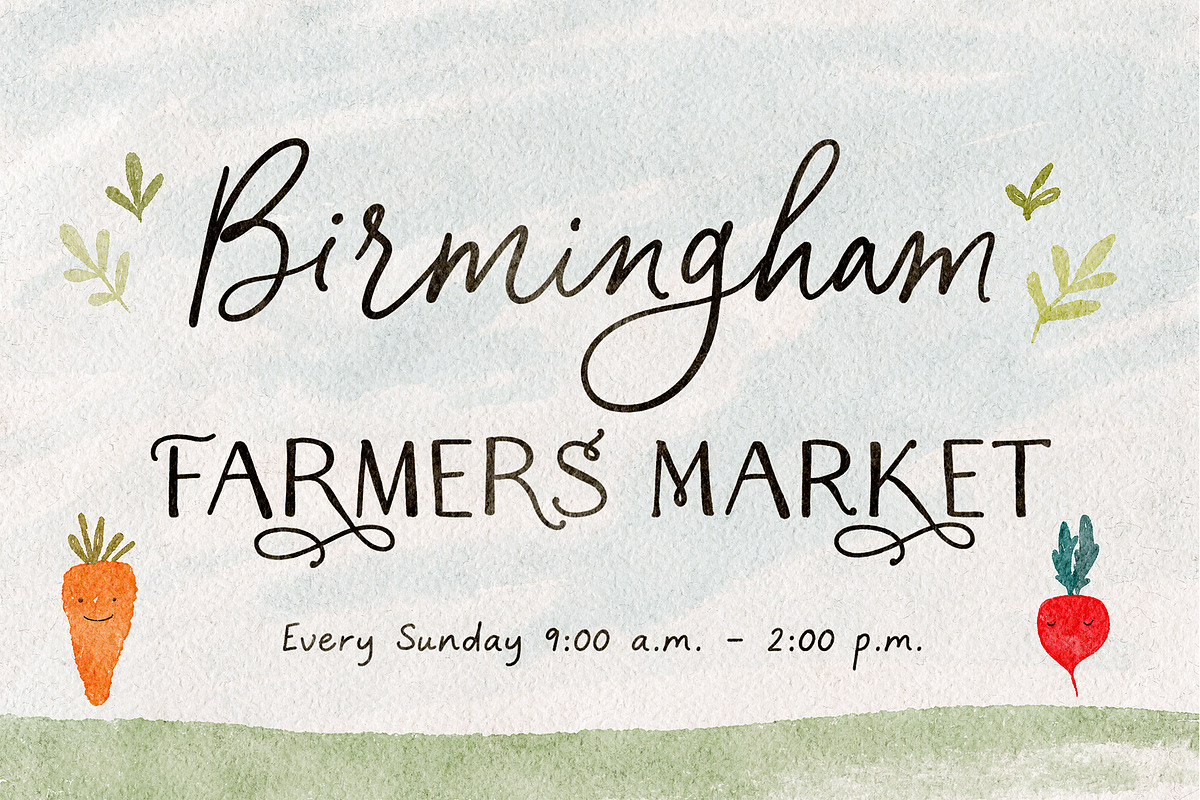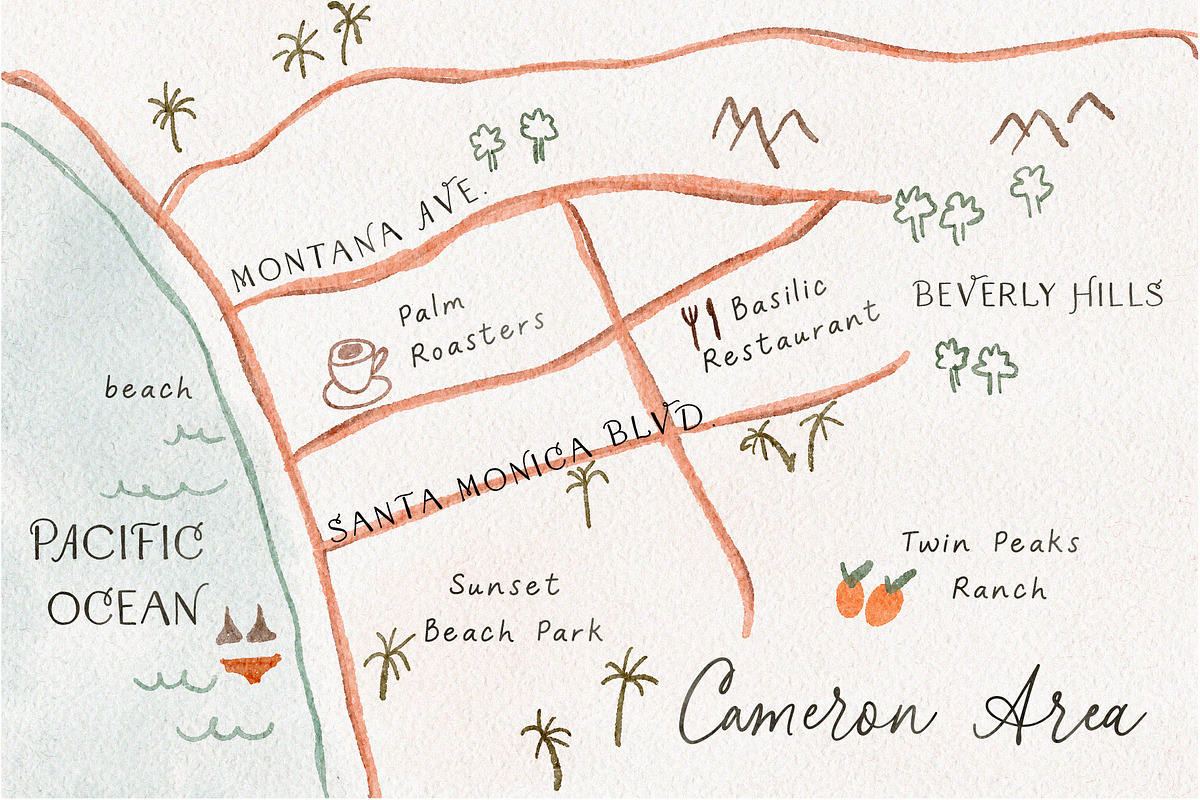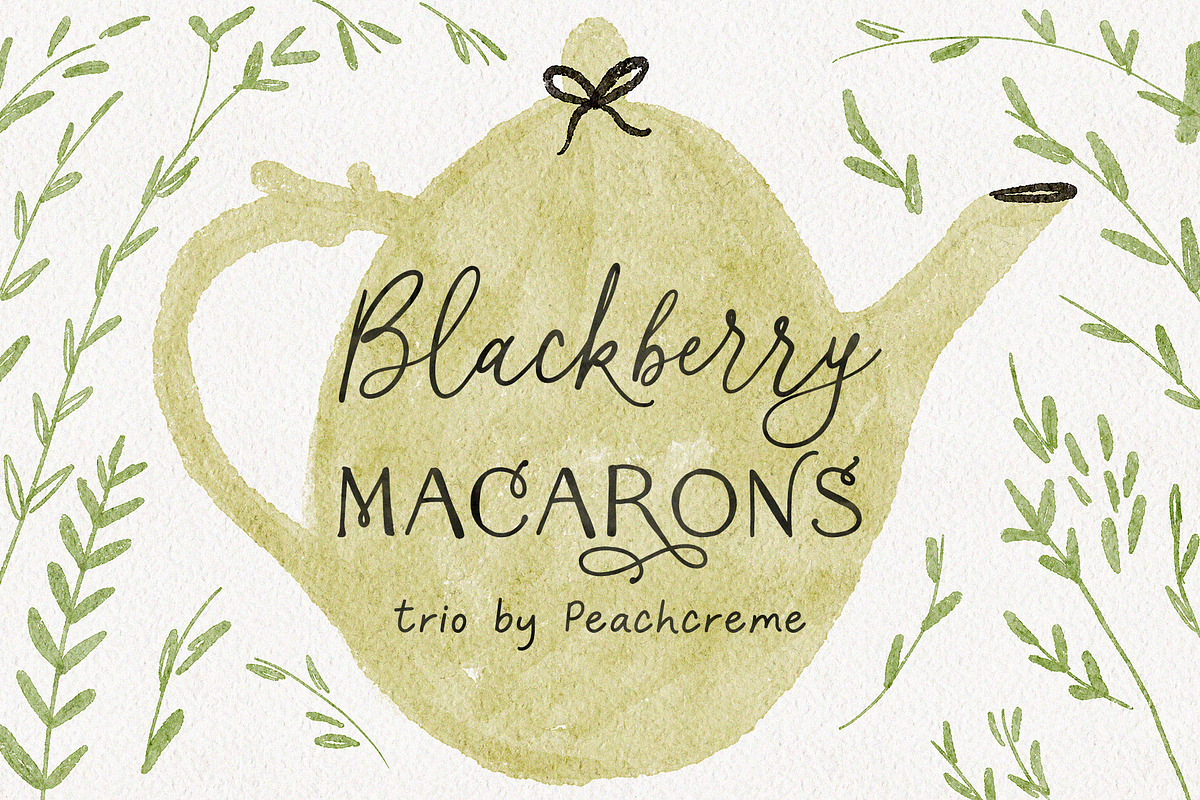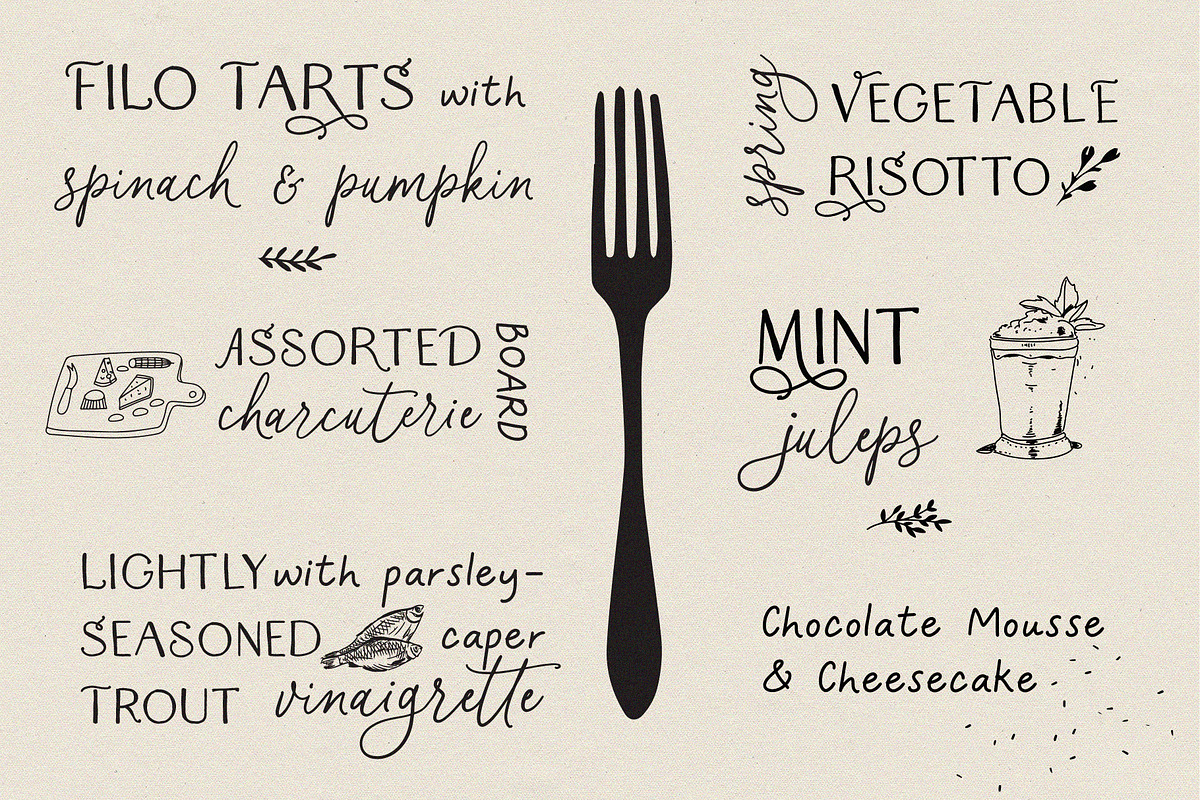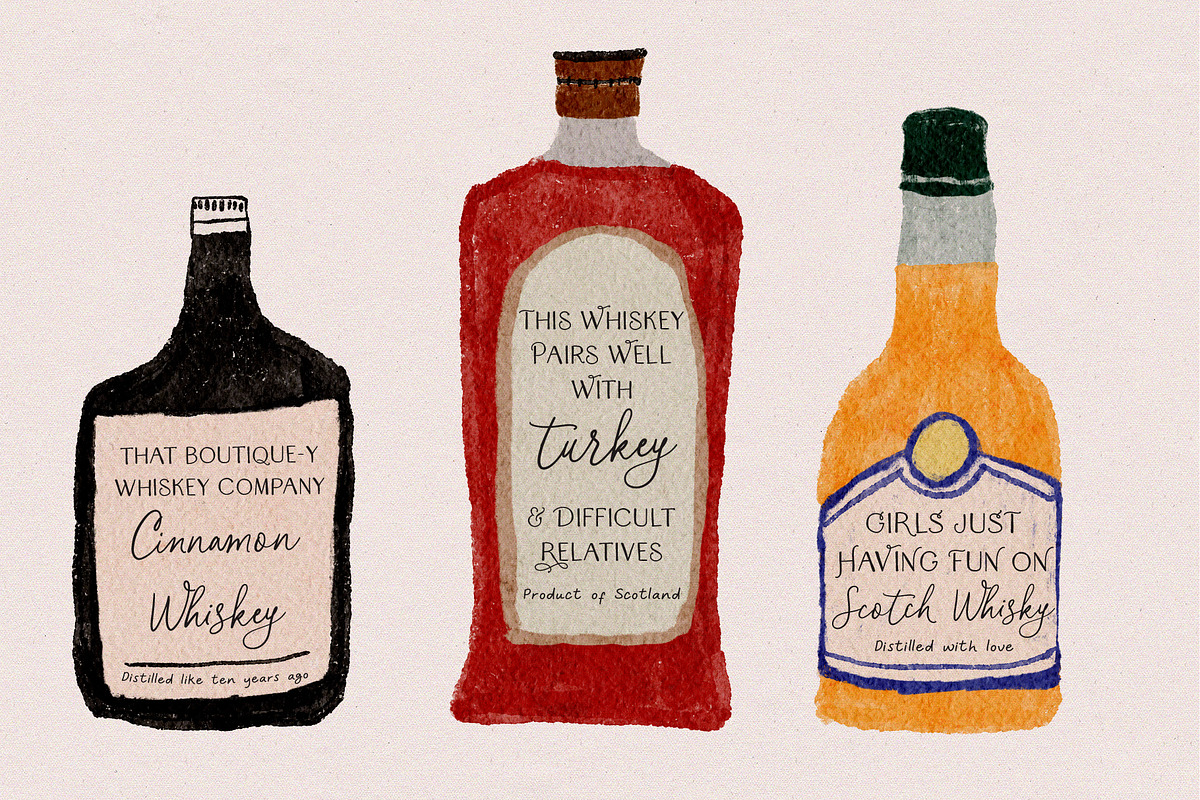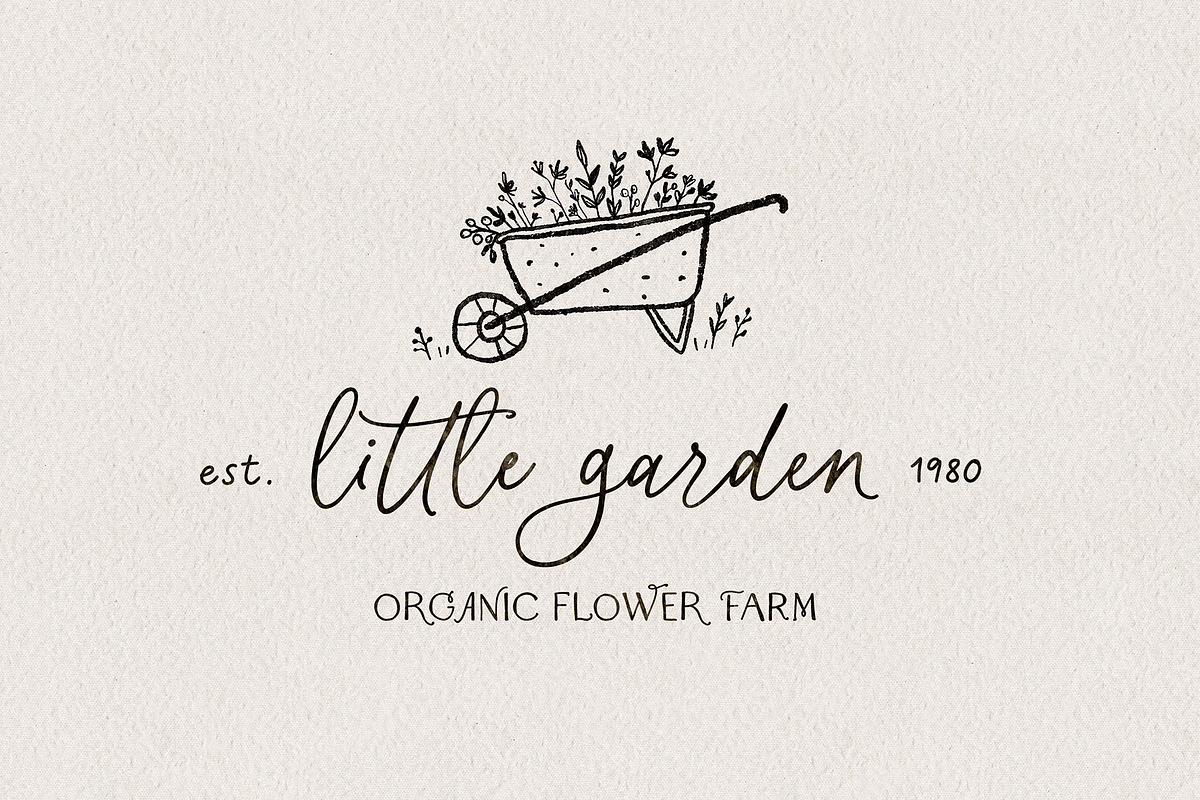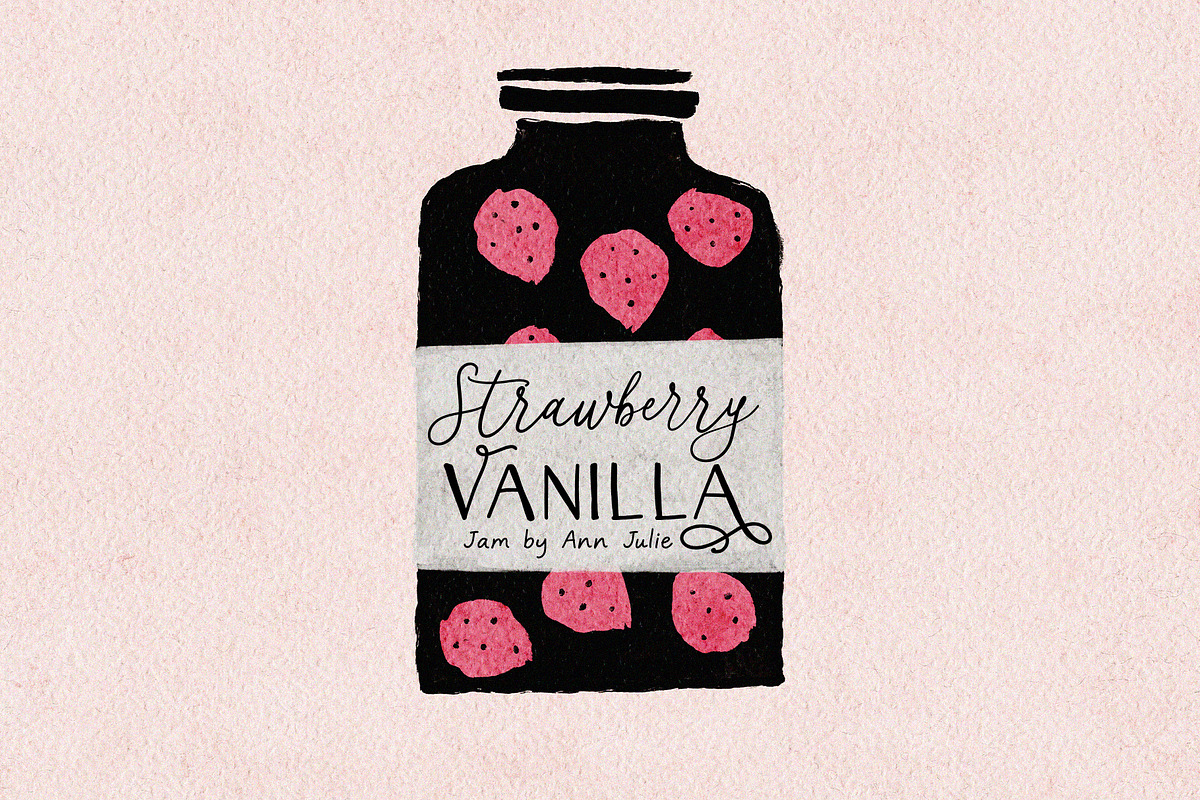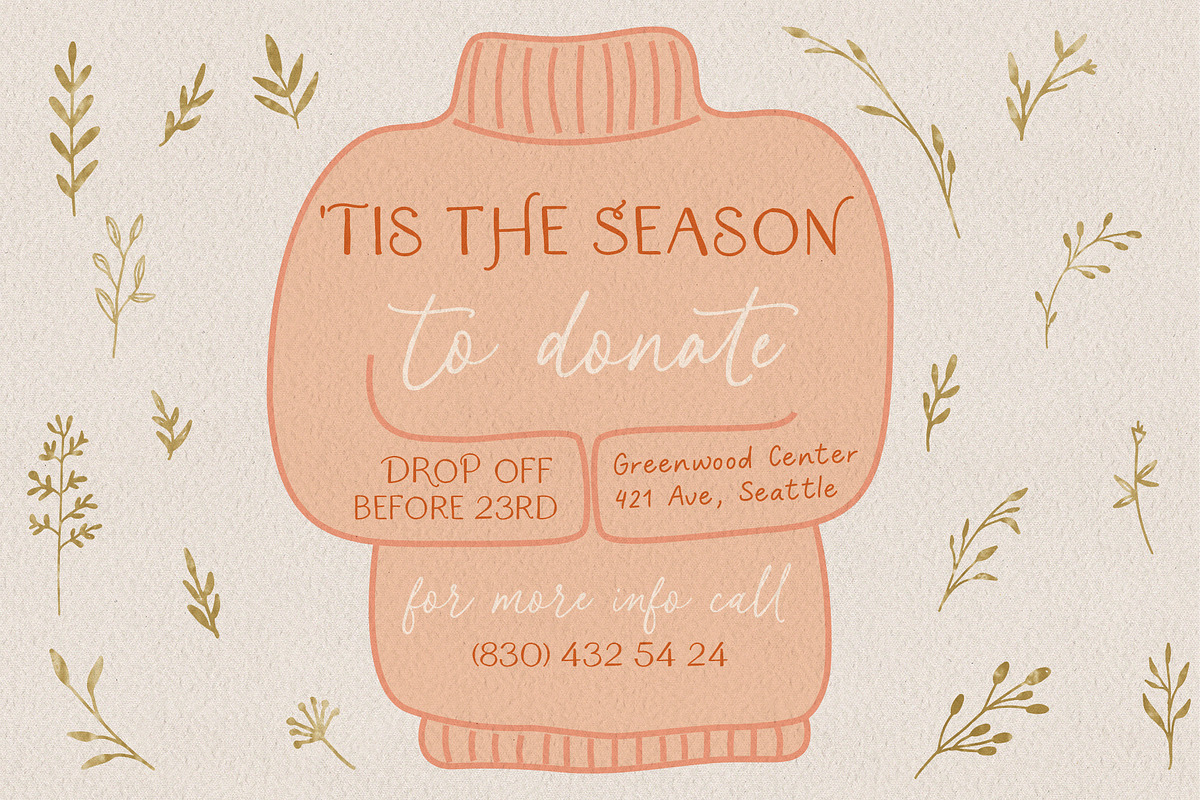
Blackberry Macarons // Font Trio
Say hello to the Blackberry Macarons Font Trio! Heart-warming Script, Display, and Sans Serif fonts that will enliven your designs.
Blackberry Macarons Display - includes all caps regular and multilingual letters, punctuation, numbers, and as a bonus the letters A, K, M, Q, R with beautiful swashes to keep your designs attractive :)
Blackberry Macarons Script - has all uppercase and lowercase letters, numerals, punctuation, and 42 fancy ligatures as well to add a cheesy flair to your words.
Blackberry Macarons Sans - a cute and fun hand-drawn typeface with a little imperfect look that works great to add a handmade touch to your projects. Includes a full set of regular letters, numbers, and punctuation.
Sweet and quirky, the Blackberry Macarons Font trio is perfect for recipes, book illustrations, lettering, fun packaging, greeting cards and so much more!